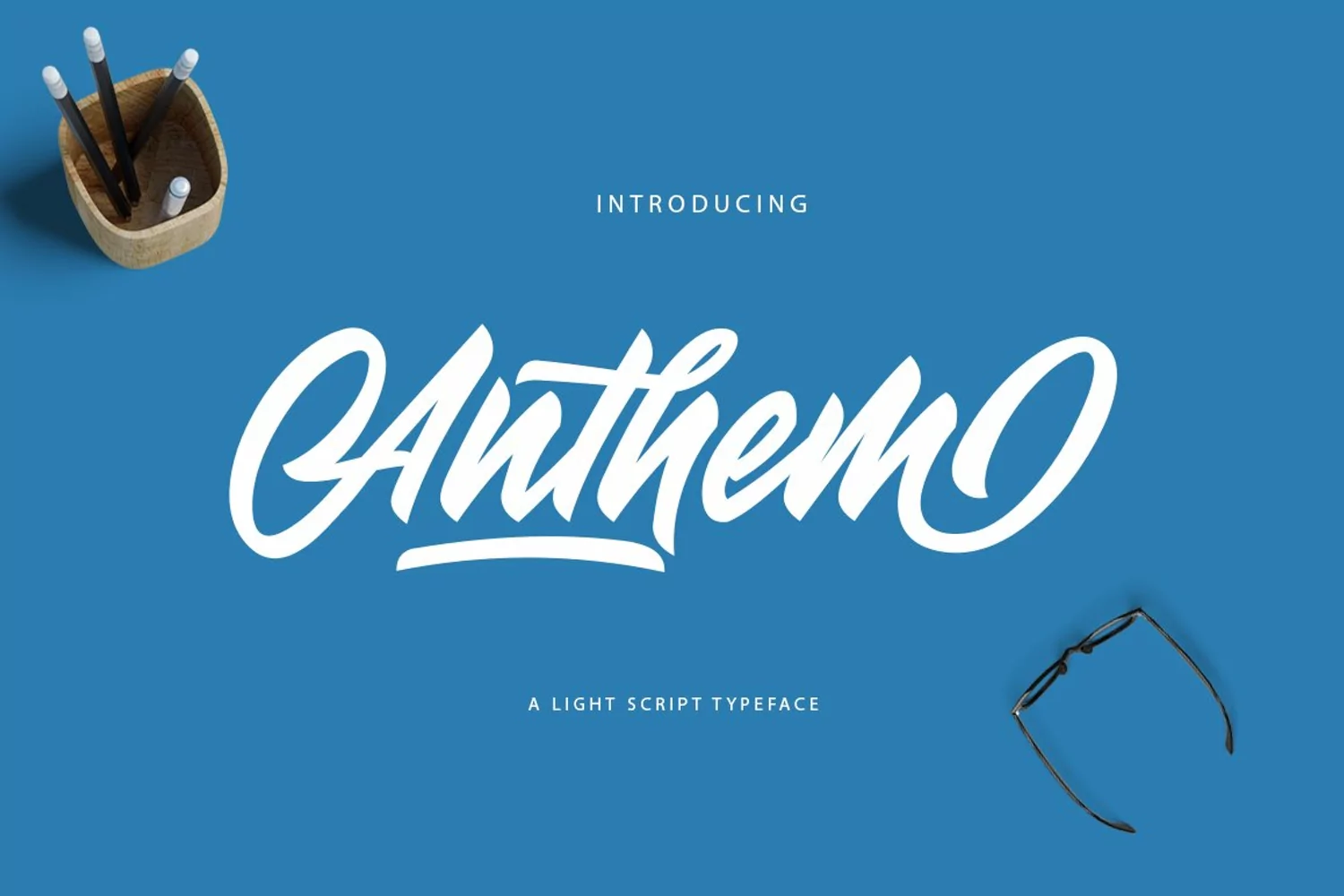
Anthem - Versatile Bold Brush Typeface
Anthem is a fantastically bold brush style font. With thick strokes and a bold, yet natural style, this font has great versatility. Anthem comes with a few options for alternate characters, so you can customize the look of your project or design with just a few clicks of the mouse. Anthem is ideal for logos, branding, headlines, apparel and more!